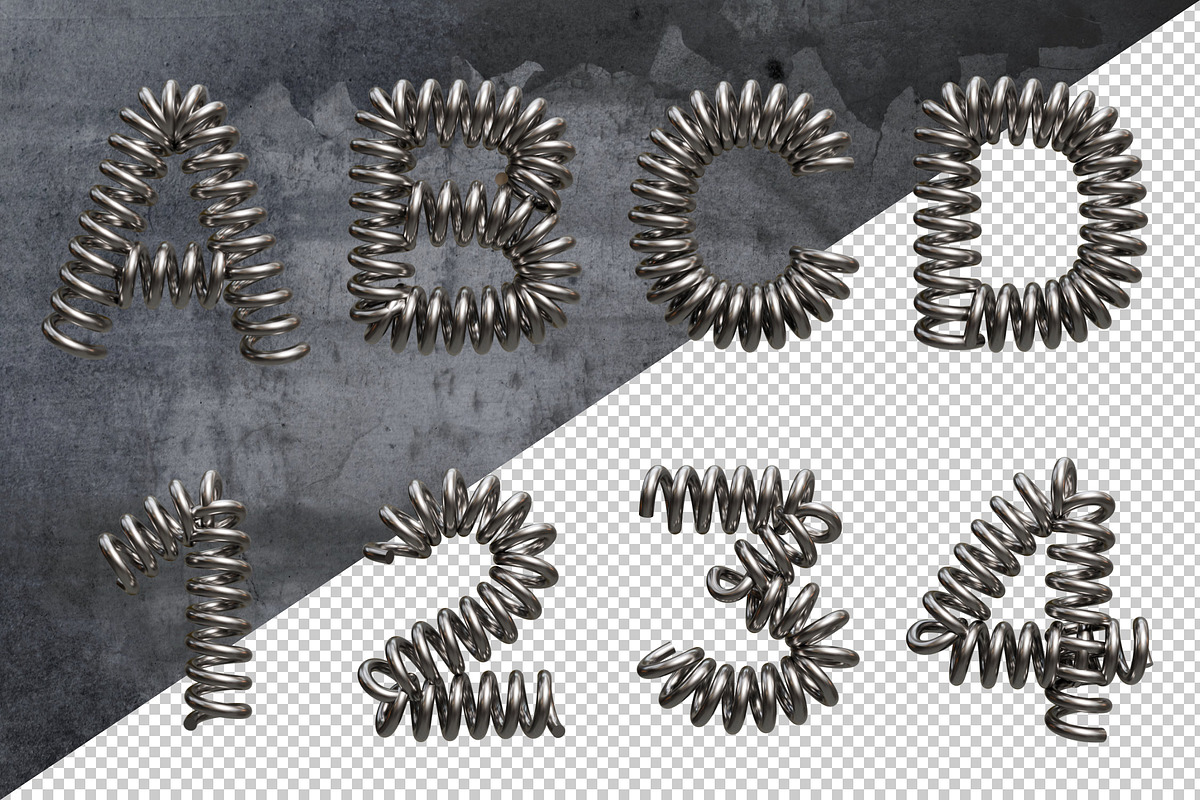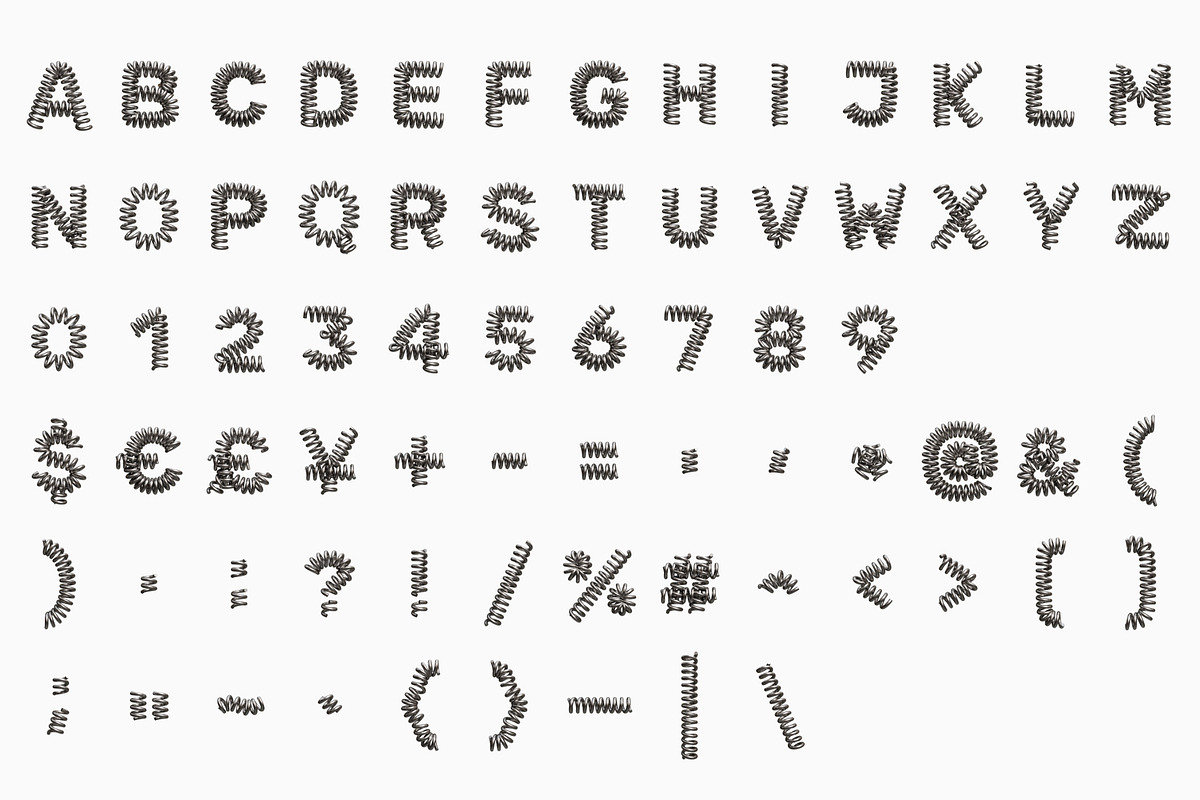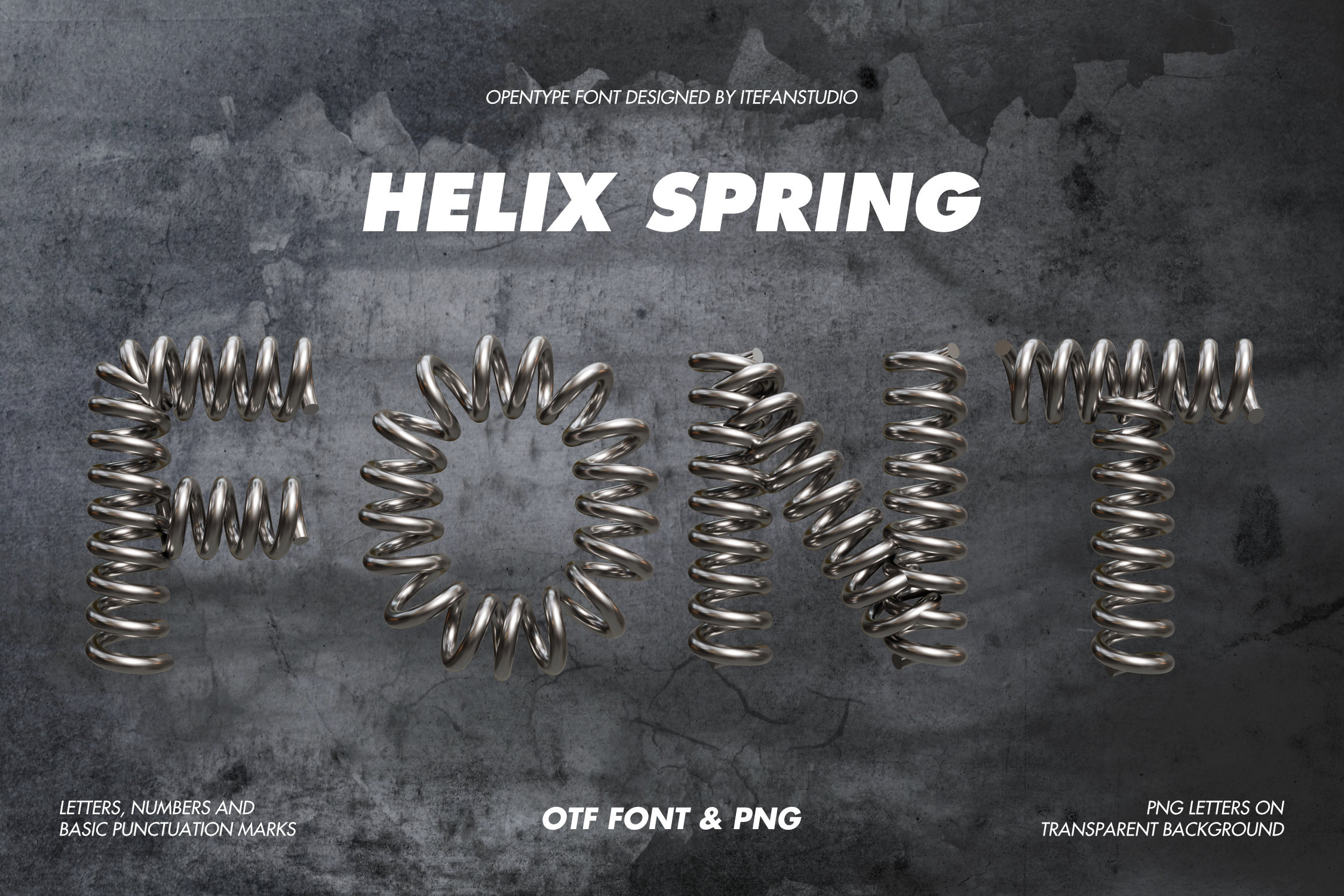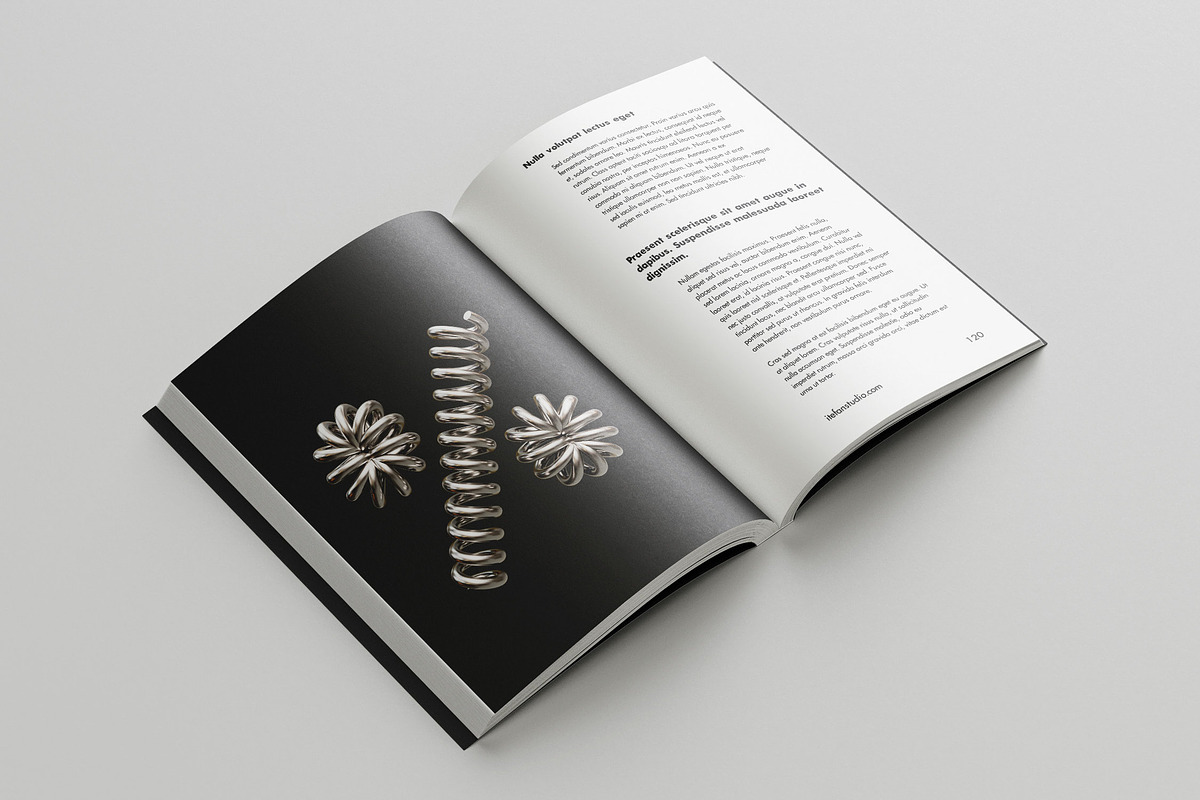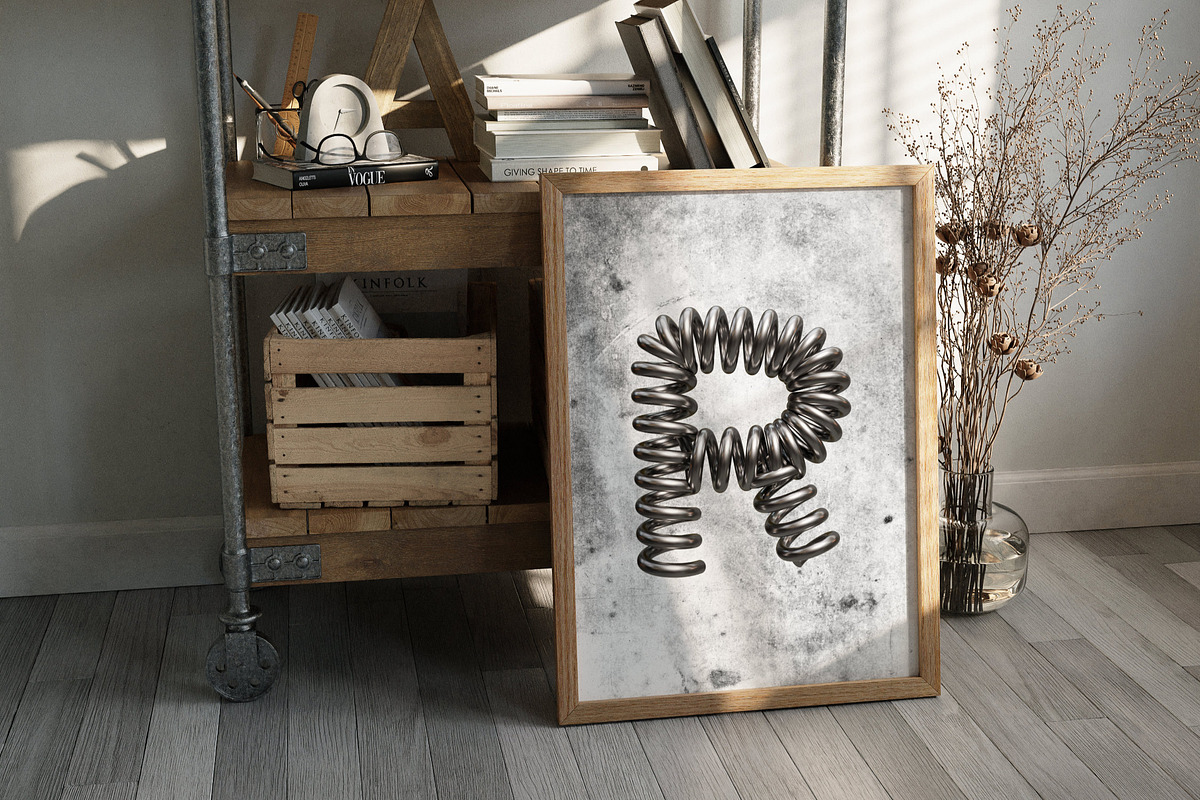
Helix Spring Font
Every symbol is crafted from gleaming helical and compression spring forms, thoughtfully composed into a diverse collection of designs. Polished wire is precisely twisted and shaped into distinctive, unified silhouettes — delivering a sleek, contemporary aesthetic that ties your entire visual identity together. Available in both OTF and PNG formats with transparent backgrounds.
- Letters : A to Z
- Numbers : 0 to 9
- Others : $ € £ ¥ + - = ' , * @ & ( ) . : ? ! / % # ^ < > [ ] ; " ~ ` { } _ | \
This font is a high-resolution OpenType typeface featuring uppercase letters, numbers, and basic punctuation, with each character approximately 800 pixels tall. A complete preview of all letters and glyphs is provided for reference.